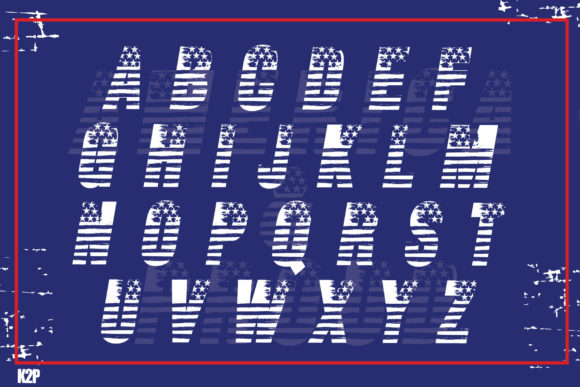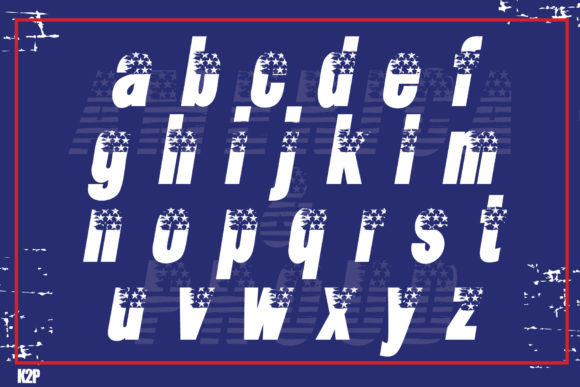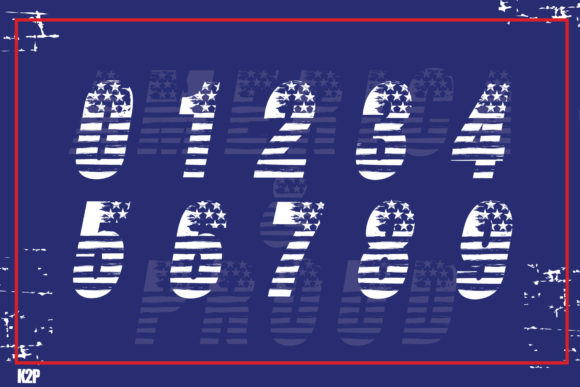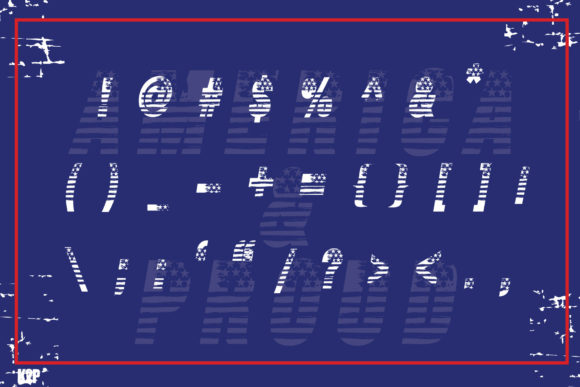
Introducing America and Proud Font: A Bold and Patriotic Typeface
Are you looking for a font that embodies the spirit of patriotism and American pride? Look no further than the America and Proud font, a bold, incredibly cool, and assertive decorative typeface that’s perfect for various design ideas related to the USA, patriotism, and more. In this article, we’ll dive into the features and benefits of this amazing font, and explore its endless possibilities for designers and crafters.
What is America and Proud Font?
America and Proud is a decorative font that’s designed to make a statement. Its bold and assertive style is perfect for creating eye-catching designs that scream patriotism and American pride. The font is incredibly versatile, making it suitable for a wide range of design projects, from posters and flyers to social media graphics and website headers.
Key Features of America and Proud Font
- Bold and Assertive Style: The America and Proud font features a bold and assertive style that’s perfect for making a statement.
- Patriotic Theme: The font’s design is inspired by American patriotism, making it perfect for designs related to the USA, Independence Day, and other patriotic themes.
- Decorative and Unique: The font features a unique and decorative style that’s sure to grab attention.
- Highly Versatile: The font is suitable for a wide range of design projects, from print to digital media.
Benefits of Using America and Proud Font
So, why choose the America and Proud font for your design projects? Here are just a few benefits of using this amazing typeface:
- Add a Touch of Patriotism: The font’s patriotic theme is perfect for adding a touch of American pride to your designs.
- Stand Out from the Crowd: The font’s bold and assertive style is sure to grab attention and make your designs stand out.
- Endless Design Possibilities: The font’s versatility means you can use it for a wide range of design projects, from posters and flyers to social media graphics and website headers.
Design Ideas Using America and Proud Font
So, what can you create with the America and Proud font? Here are just a few design ideas to get you started:
- Patriotic Posters: Create eye-catching posters for Independence Day, Memorial Day, or other patriotic holidays.
- USA-Themed Flyers: Design flyers for events, businesses, or organizations with a patriotic theme.
- Social Media Graphics: Create social media graphics that showcase American pride and patriotism.
- Website Headers: Use the font to create bold and eye-catching website headers that make a statement.
Tips and Tricks for Using America and Proud Font
Here are a few tips and tricks for getting the most out of the America and Proud font:
- Experiment with Colors: Try pairing the font with patriotic colors like red, white, and blue for a bold and eye-catching look.
- Play with Font Sizes: Experiment with different font sizes to create visual interest and hierarchy in your designs.
- Add Texture and Patterns: Add texture and patterns to your designs to give them an extra layer of depth and interest.
In conclusion, the America and Proud font is a bold, incredibly cool, and assertive decorative typeface that’s perfect for designers and crafters looking to add a touch of patriotism to their designs. With its highly versatile style and endless design possibilities, this font is sure to become a favorite in your design arsenal. So why wait? Download the America and Proud font today and start creating amazing designs that showcase American pride and patriotism!